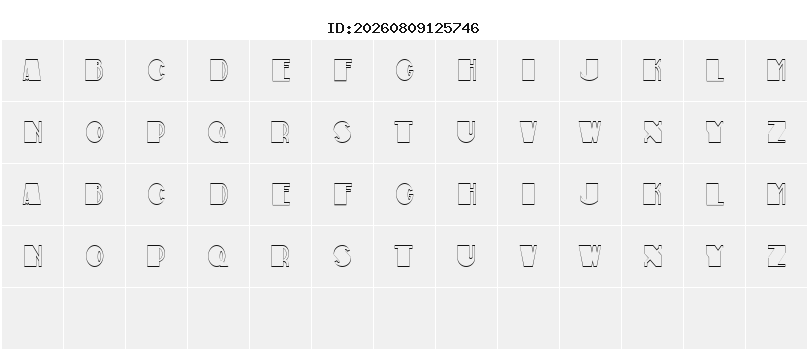
• Font Name: Peace Outline
• Full Font Name: Peace Outline
Peace Outline.ttf is a modern, elegant sans-serif font designed for ultimate readability and visual harmony. Perfect for branding, headlines, web design, and print materials.